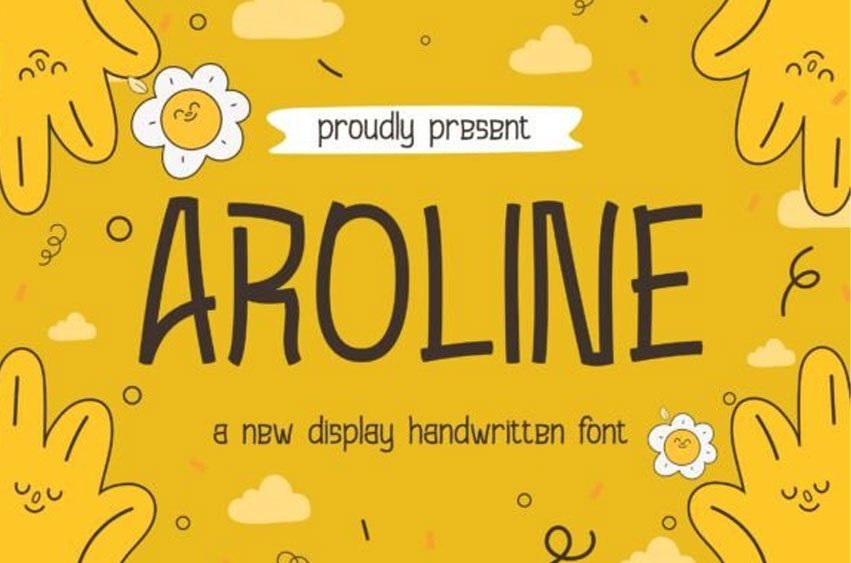
Aroline Font Step into a world of whimsy and effortless charm with the Aroline font. This display handwritten typeface is the perfect embodiment of “playful professional,” offering a tall, condensed structure that maintains a friendly, approachable soul. Designed to feel like a neat yet spontaneous felt-tip pen sketch, the Aroline typeface breathes life into layouts that need to feel personal and heartwarming. Its slender proportions make it an excellent choice for vertical designs, social media stories, and quirky editorial headers where space is a premium but personality is a requirement.
The Aroline font thrives when paired with soft pastel palettes or vibrant, sunny aesthetics—as seen in its preview. It is the ultimate companion for children’s book titles, organic food packaging, and greeting cards that require a “human” touch without the messiness of traditional handwriting.
Whether you are building a brand identity for a boutique nursery or designing upbeat classroom materials, the Aroline typeface ensures your message is delivered with a smile. Its clean lines also ensure high legibility at various sizes, making it as functional as it is fun.